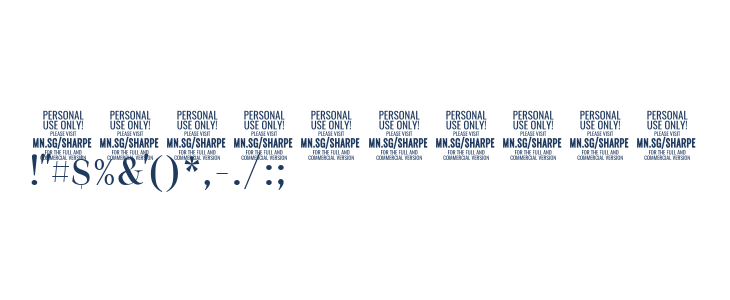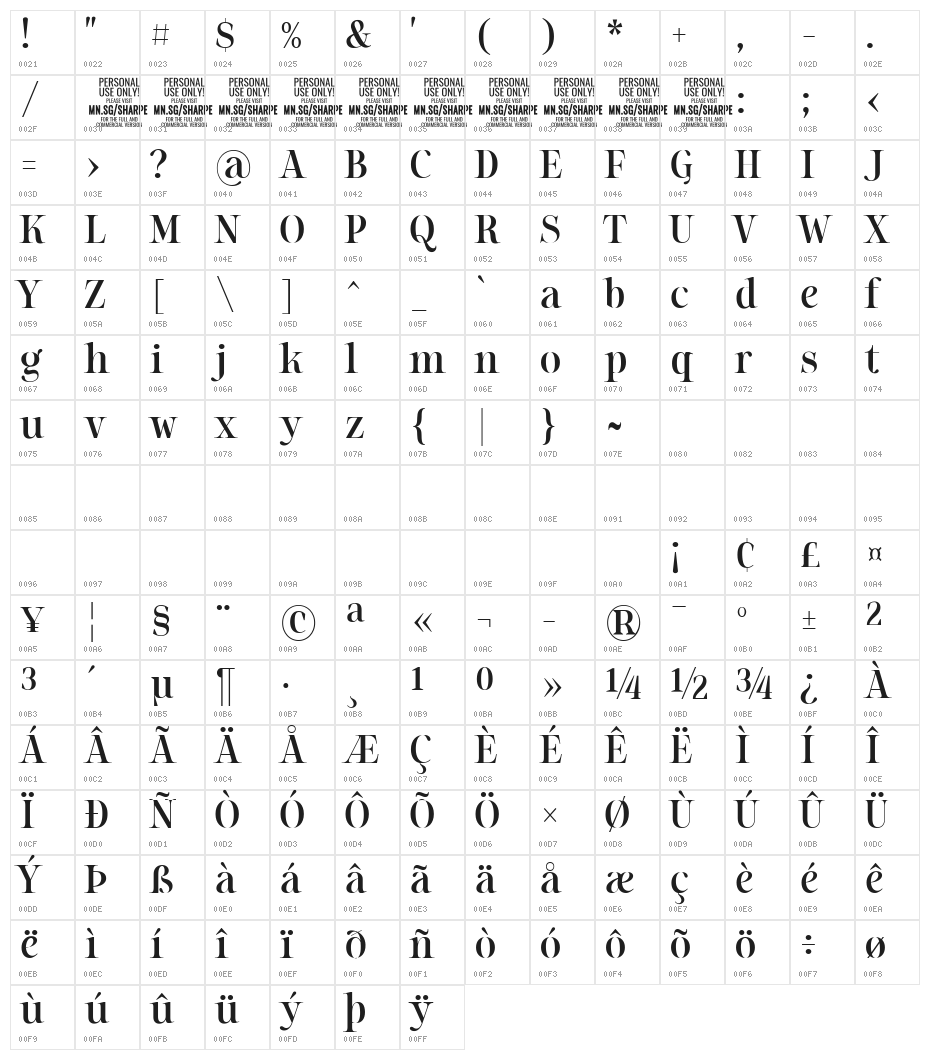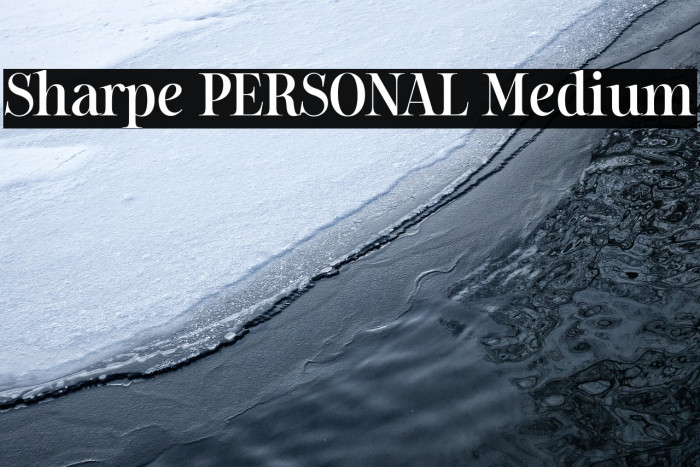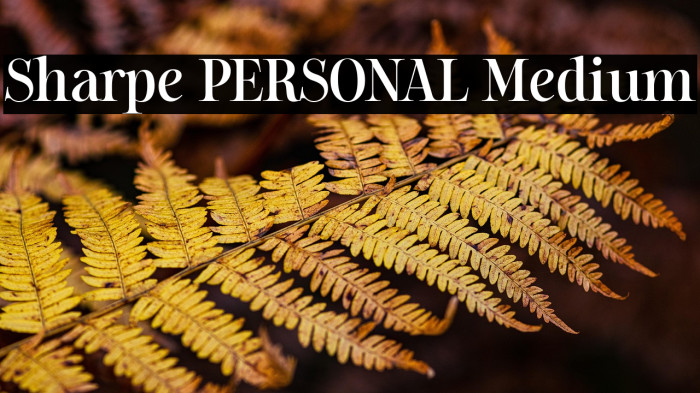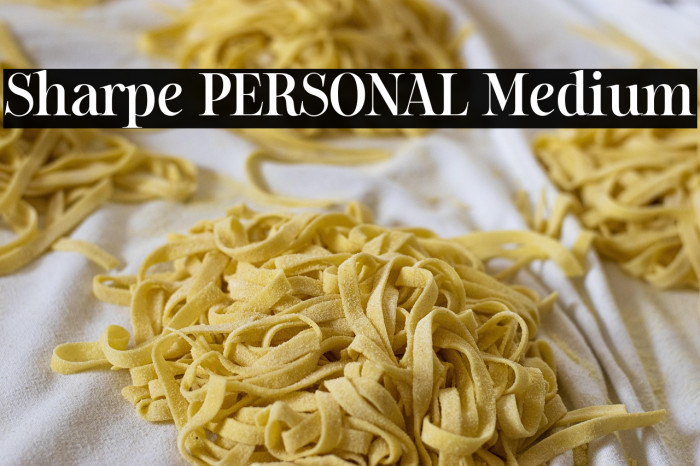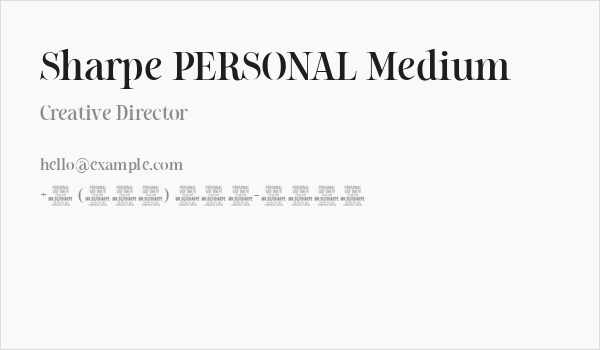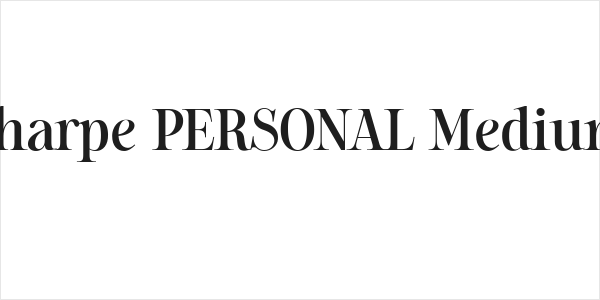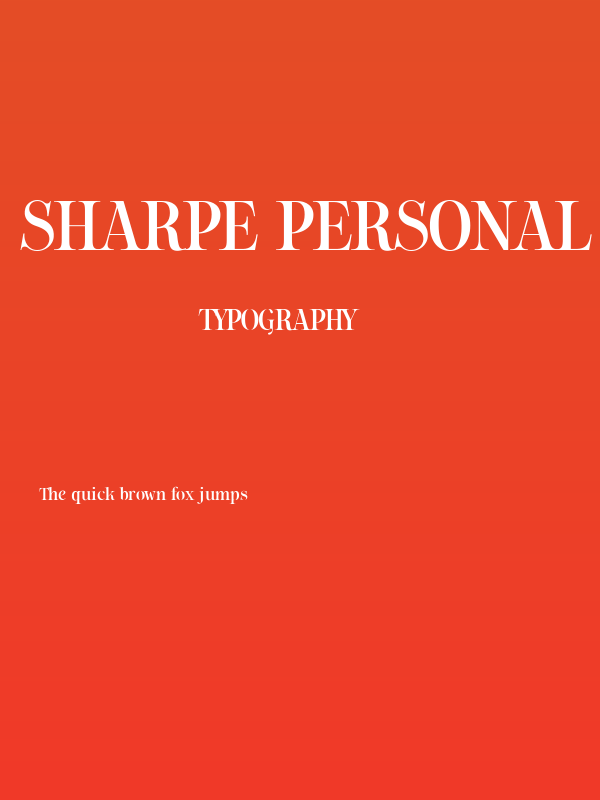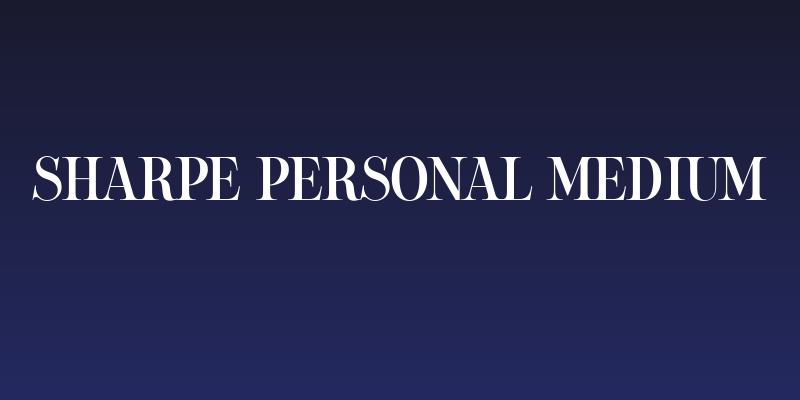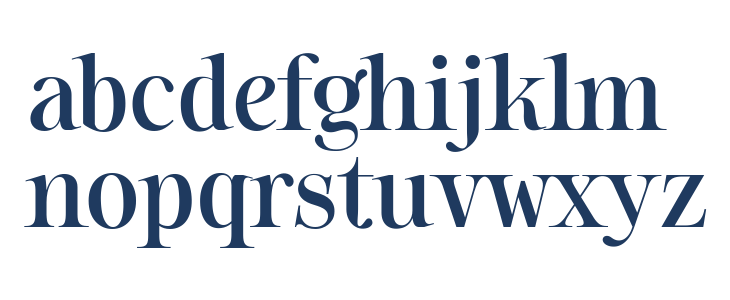
Sharpe PERSONAL Medium Font
Sharpe PERSONAL Medium Description
This font features a bold and elegant design with high contrast between thick and thin strokes, giving it a sophisticated and classic appearance. The serifs are pronounced, adding a touch of formality and tradition. The uppercase letters are tall and commanding, while the lowercase letters maintain a balanced and harmonious flow. The numerals and special characters are designed to complement the overall style, making them suitable for a variety of applications. The font's distinct character spacing and sharp edges make it ideal for creating impactful headlines and titles.
| Proposed Projects | Ideal for book covers, editorial design, luxury branding, and formal invitations. |